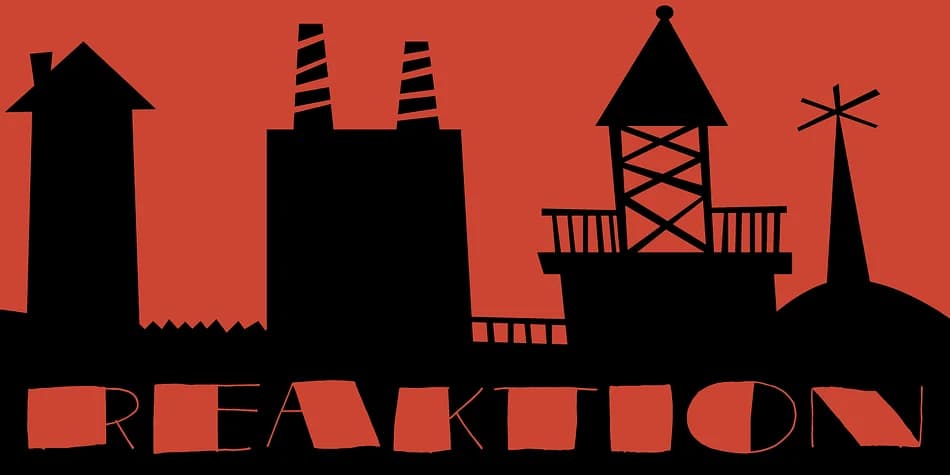
This typeface carries the kind of energy that sits between vintage glamour and modern rebellion. REAKTION, designed by Pizzadude.dk, is a loose, handmade interpretation of Art Deco that refuses to feel stuffy or overly precious. Instead, it reads as genuinely alive and sketch-quality, with wide, generous letterforms that command immediate attention without needing to shout.
The font truly shines on retro music festival posters, upscale nightclub event flyers, boutique luxury skincare packaging and artisanal food labels, plus hand-lettered craft fair signage. You get two distinct versions to work with: the striped inline style adds graphic texture and visual interest, while the solid black option delivers clean sophistication. Each character includes five contextual alternates, meaning repeated letters look naturally varied rather than mechanically stamped across your design. Full multilingual support is included, so you can work in English, accented European languages, or whatever your audience speaks.
Pair REAKTION with a straightforward modern sans-serif for any body text, letting the decorative weight stay where it belongs (in the headlines). The contrast between them actually makes both fonts work harder and look sharper. Get it on Creative Fabrica whenever you need that perfect retro-modern aesthetic.
REAKTION Font is a decorative font that shines as a display or heading face. Pair it with a clean sans-serif or serif font for body text β the contrast creates a clear hierarchy while the two styles stay balanced and easy to read.